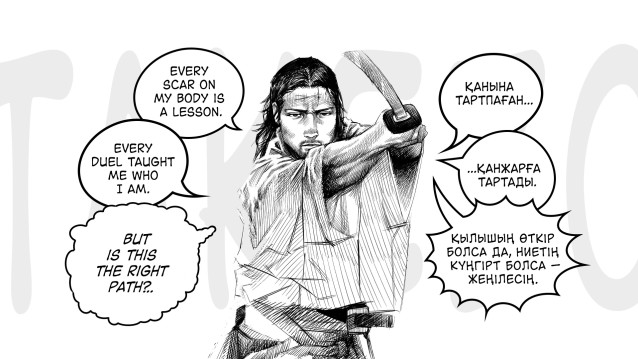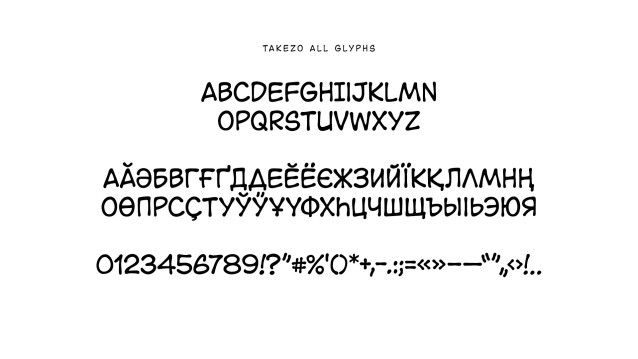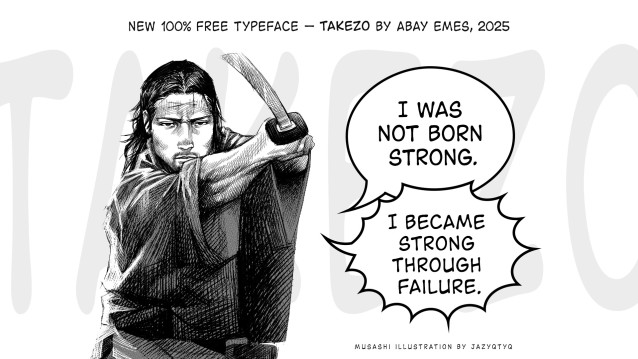
Takezo Playful Font a sweet and friendly handwritten font. Cute and fun, this font is ideal for writing wedding invitations, cards, or any other design that might need a fun touch!
| Classification: | Handwritten Fonts, Playful / Fun Fonts |